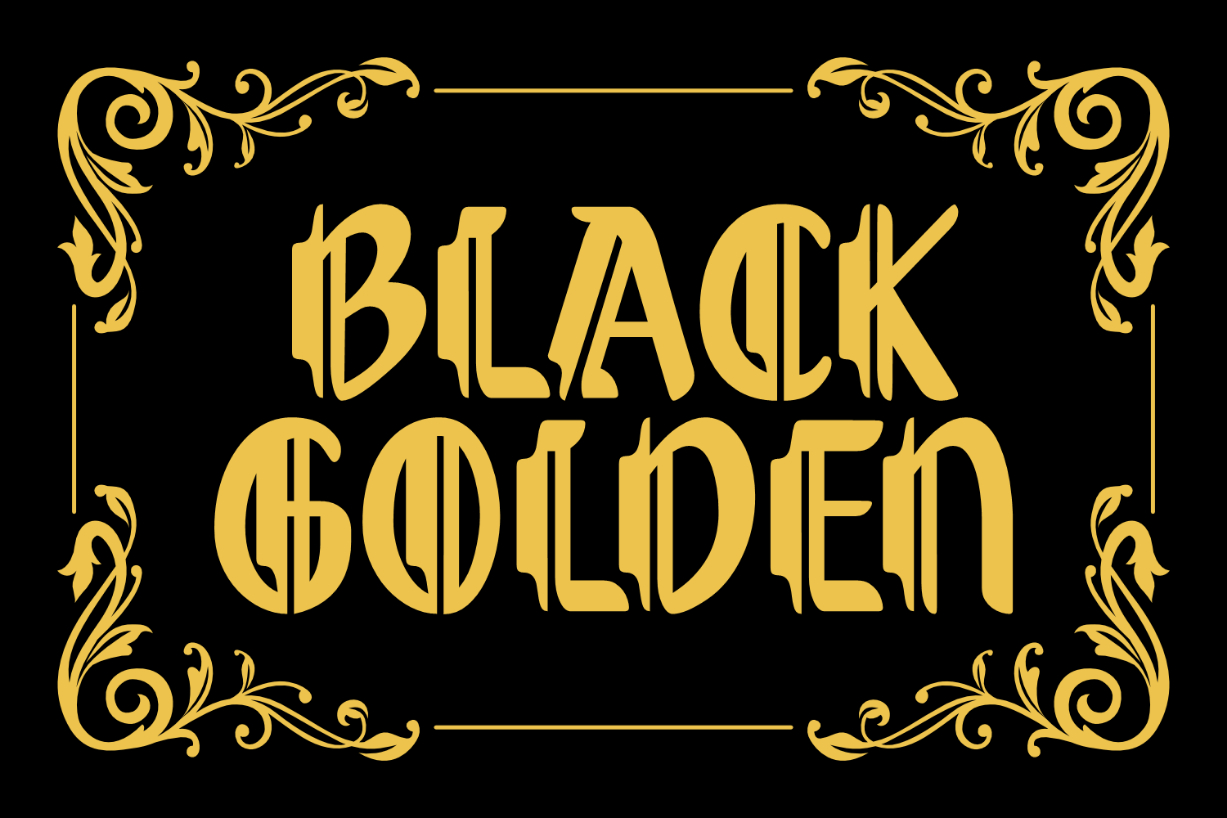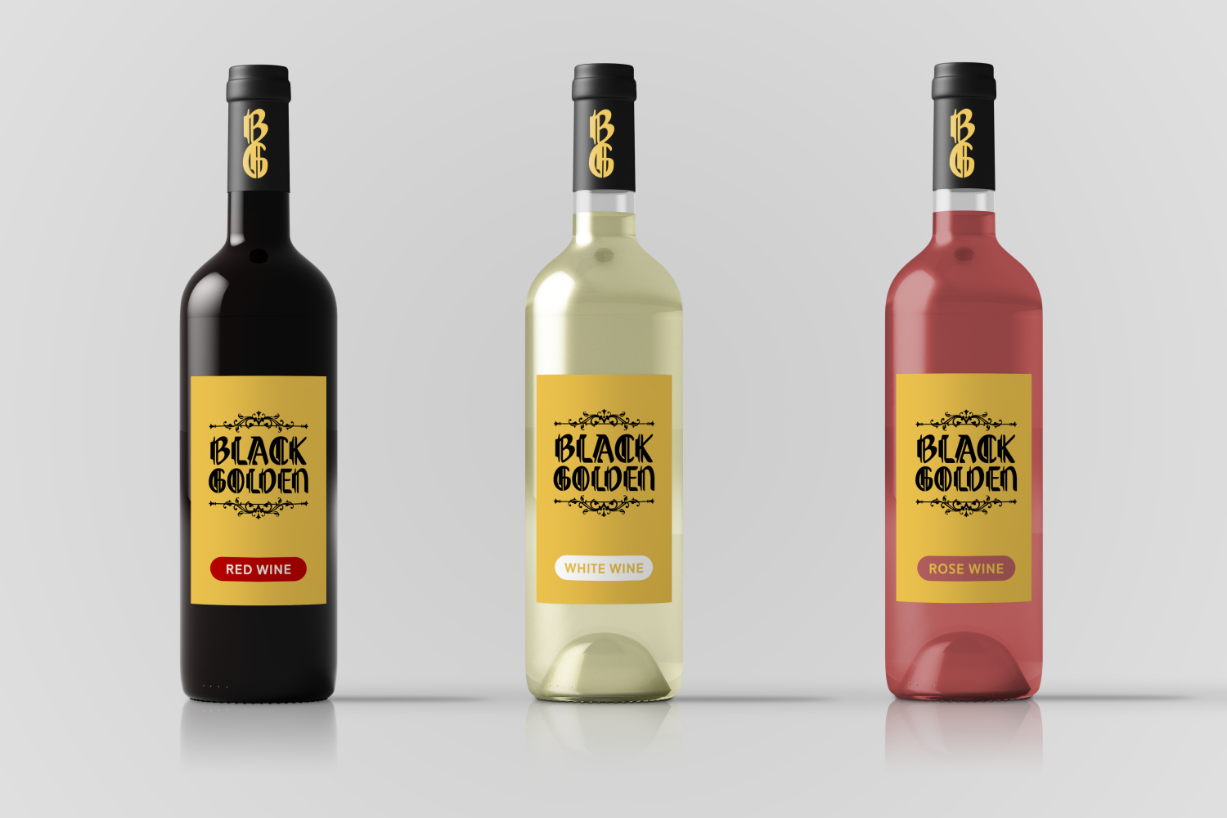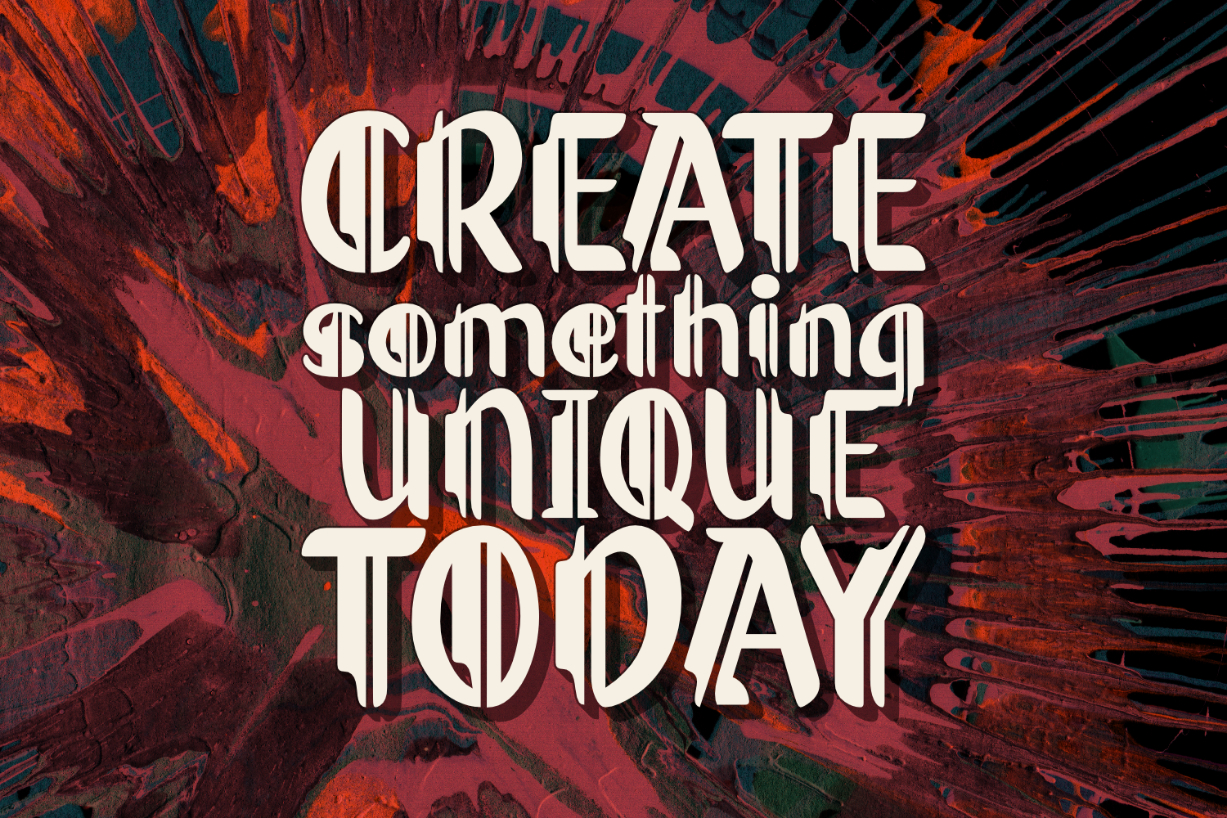
Later Font
About Later Font
Later is the perfect blackletter font for adding a gothic flair to your creations! It beautifully complements wine labels, vintage designs, old-school items, classy product packaging, or anything solemn.